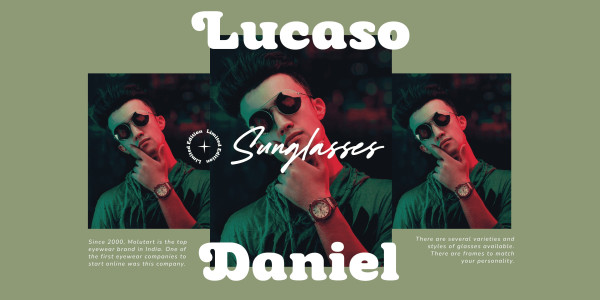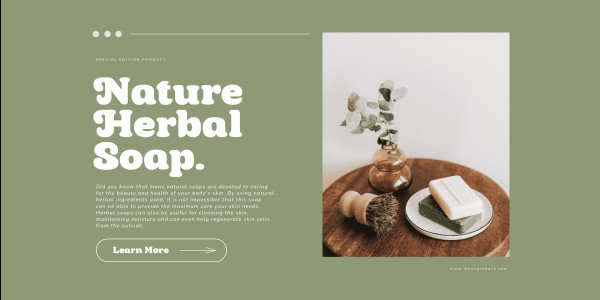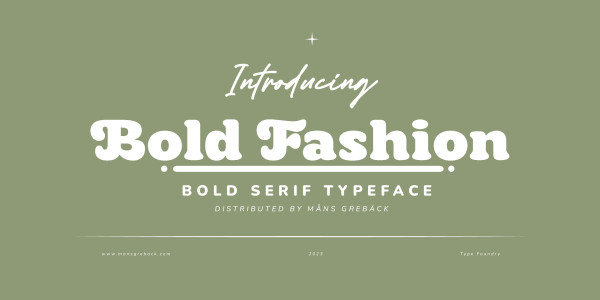
Bold Fashion Font
Bold Fashion Font is a heavy slab-serif font of the disco era. Its funk-style design, coupled with soft, rounded serifs, embodies the soul of retro.
Each letter is profoundly heavy, yet they prance with a bouncy, comfy rhythm, akin to catchy 70s beats.